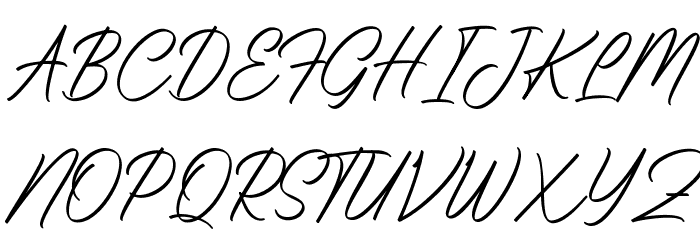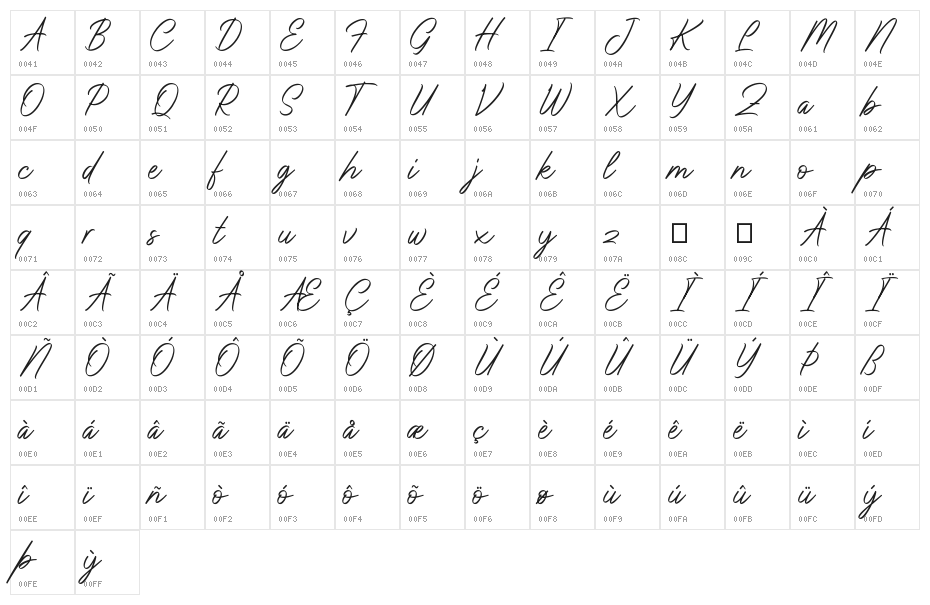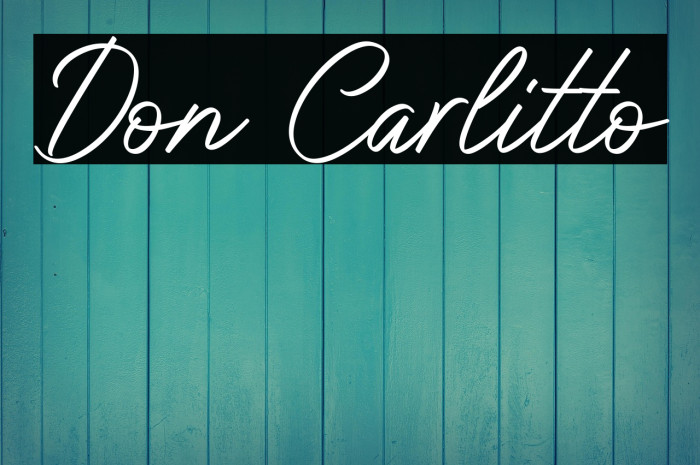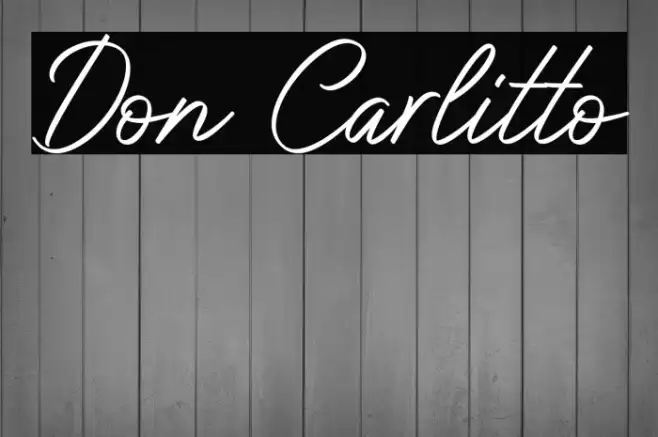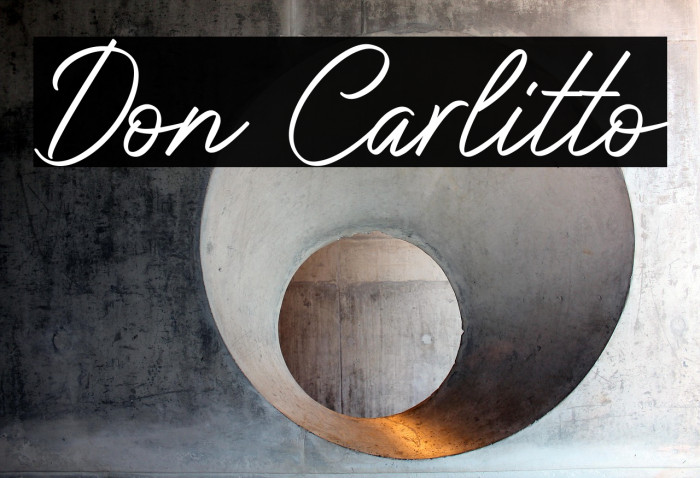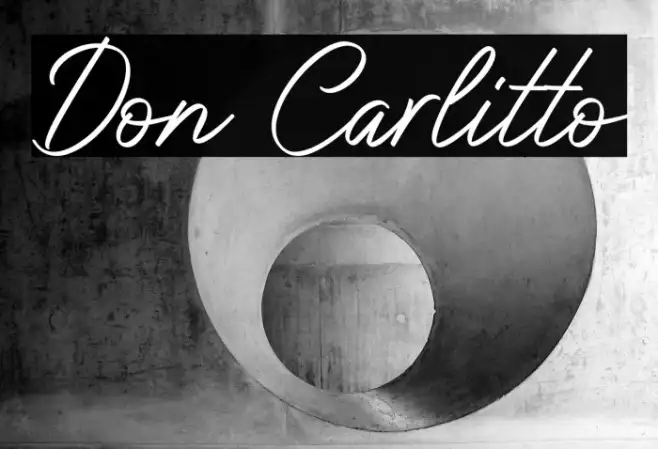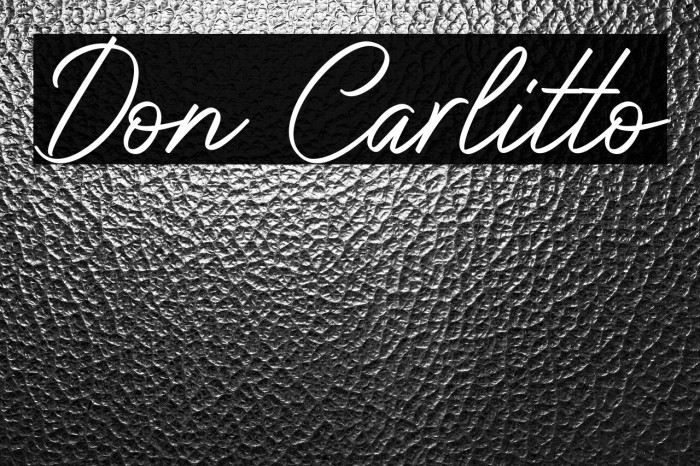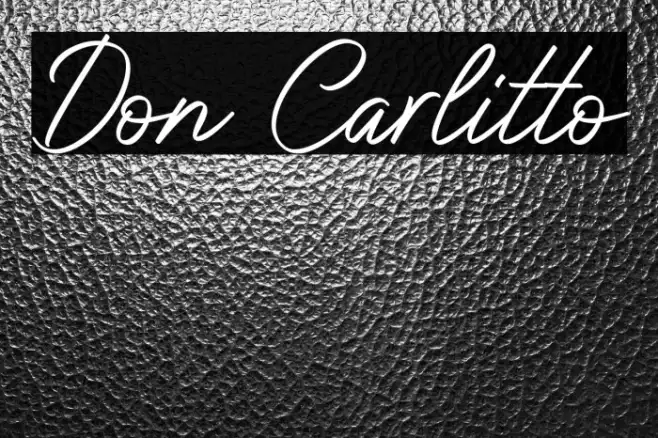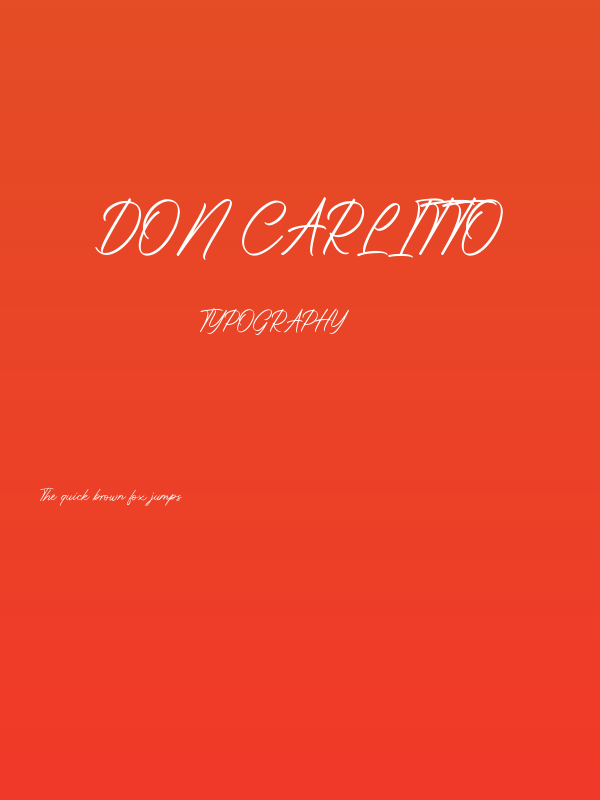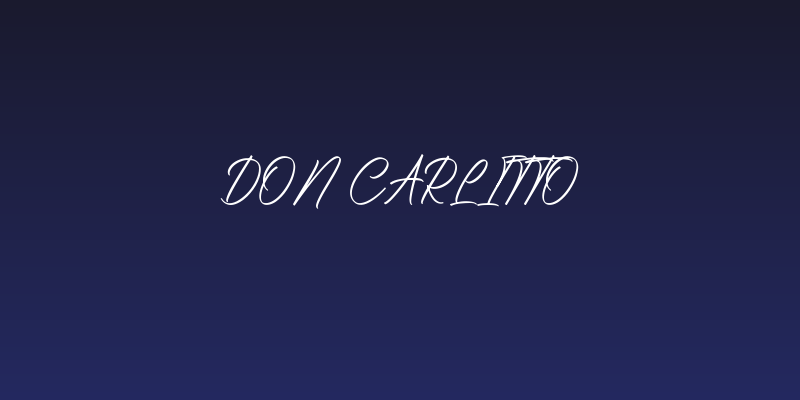
Don Carlitto Font
Don Carlitto Description
This font exudes a classic and elegant script style, characterized by its flowing, cursive letterforms. The uppercase letters are tall and slender, with graceful curves and loops that give a sense of fluidity and motion. The lowercase letters maintain a consistent slant, enhancing the handwritten feel. The overall design is sophisticated, making it suitable for formal invitations, branding, and decorative purposes. The strokes are smooth and connected, providing a seamless appearance that mimics natural handwriting. This font captures a timeless aesthetic, perfect for projects that require a touch of elegance and refinement.
| Proposed Projects | Ideal for wedding invitations, elegant branding, greeting cards, and decorative headings. |